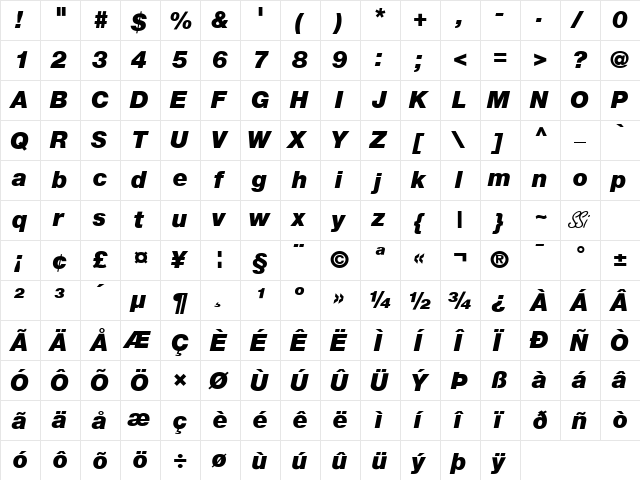
Context Reprise Black SSi Black Italic
Context Reprise Black SSi takes a measured approach to typography — its balanced proportions and neutral character make it a reliable workhorse for both digital and print work. The slanted form adds forward momentum and visual energy.